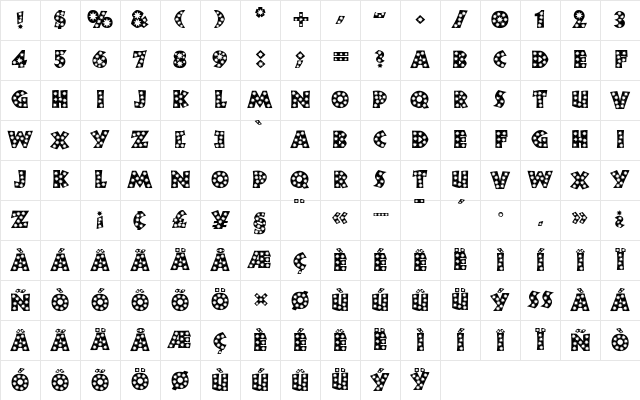
NeulandStar Regular
NeulandStar Family
Design Context for NeulandStar
NeulandStar is a composed and adaptable typeface that performs quietly and consistently across a wide range of design contexts.